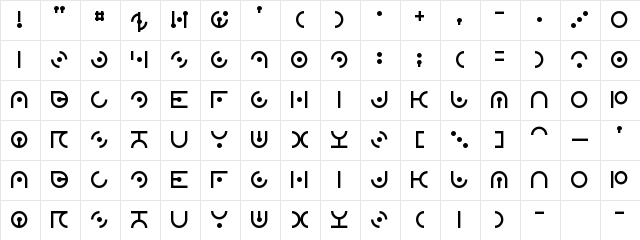
Zdyk Sagittarius Regular
Design Context for Zdyk Sagittarius Typeface
Zdyk Sagittarius is a composed and adaptable typeface that performs quietly and consistently across a wide range of design contexts.